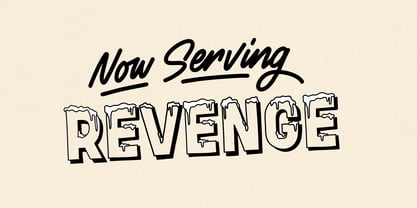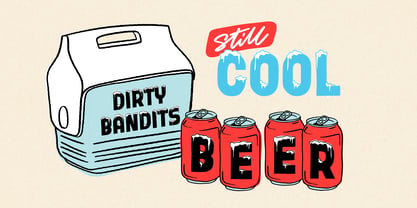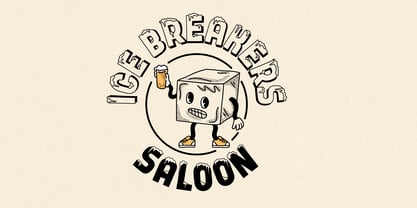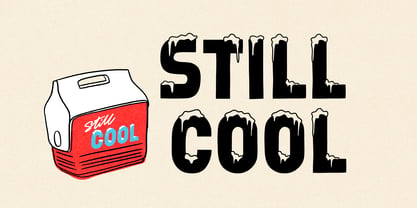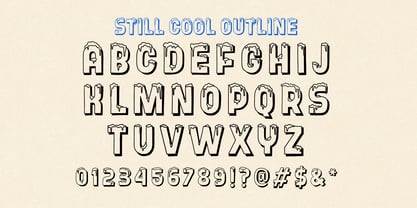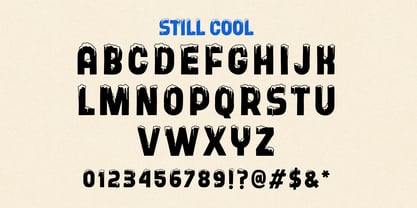
Still Cool
von Dirty Bandits
Die Schriftfamilie Still Cool wurde von Annica Lydenberg entworfen und von Dirty Bandits veröffentlicht. Still Cool enthält 2 Stile und Familienpaketoptionen. Mehr über diese Familie
Still Cool is an all-caps display family rooted in the authentic charm of hand-painted signage, engineered to deliver a distinct human touch. Built for restaurants, food packaging, streetwear, retail packaging, and environmental graphics, the font features a disciplined, tall, bold weight structure available in two versatile variations: a monochromatic Solid style, and an Outline version with an integrated drop shadow.
Designer: Annica Lydenberg
Foundry: Dirty Bandits
Dirty Bandits Type is the digital extension of a decades spent painting walls and drawing letters by hand. We create display typefaces with the weight, rhythm, and imperfections of physical work. Fonts from Dirty Bandits are high-impact tools built for designers who need their words to carry the same presence as a custom piece of lettering. Built for branding, packaging, and posters, our fonts bridge the gap between digital and analog with emotive energy.